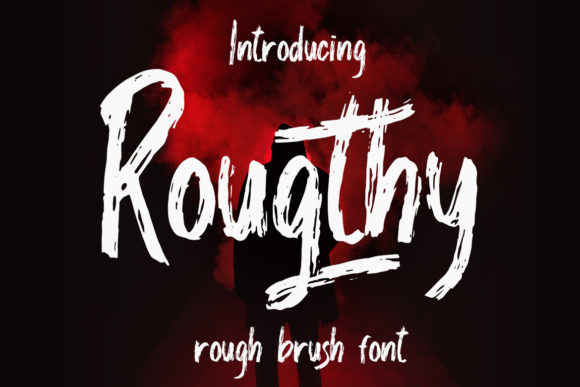
Experience the allure of Rougthy Font, a captivating display typeface that injects life into your creative endeavors. Crafted with the utmost care using a brush pen, Rougthy blends the charm of handwritten strokes with a modern, clean aesthetic. Its subtle quirks add a touch of personality, making it the perfect choice for adding a personal touch to your designs.
Unleash your creativity and explore the endless possibilities of Rougthy Font. Whether you're designing logos, branding materials, social media graphics, or embarking on crafty DIY projects, this font is your ultimate companion. Its versatility extends across a broad spectrum of design styles, allowing you to effortlessly create designs that resonate with your audience.
Immerse yourself in the world of data visualization and harness the power of Rougthy Font to transform complex information into captivating narratives. Its bold, distinct letterforms effortlessly draw attention to key insights, ensuring your data-driven presentations stand out from the crowd. Engage your audience with clarity and precision, leaving a lasting impression that drives action.
With Rougthy Font as your creative ally, you'll unlock a world of possibilities. Its effortless charm and versatility make it an indispensable tool for designers, marketers, and creative professionals alike. Embrace the power of Rougthy Font and let your ideas take flight.